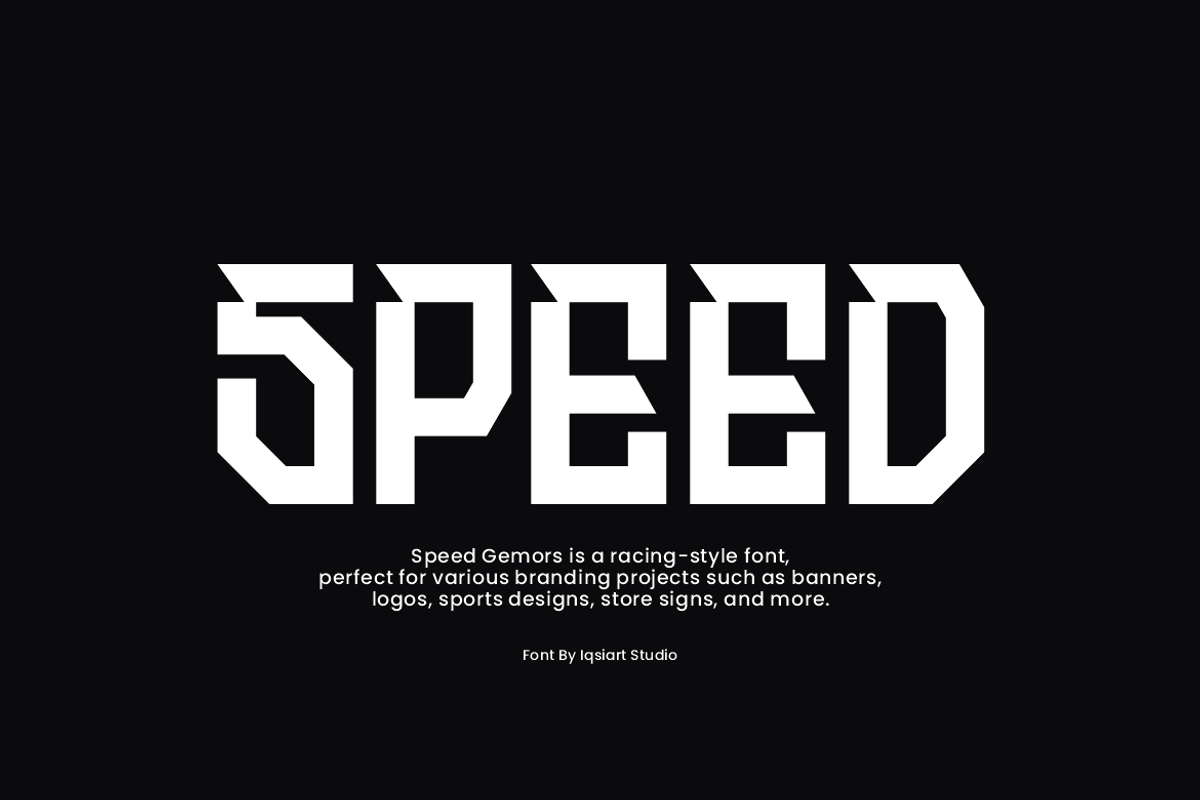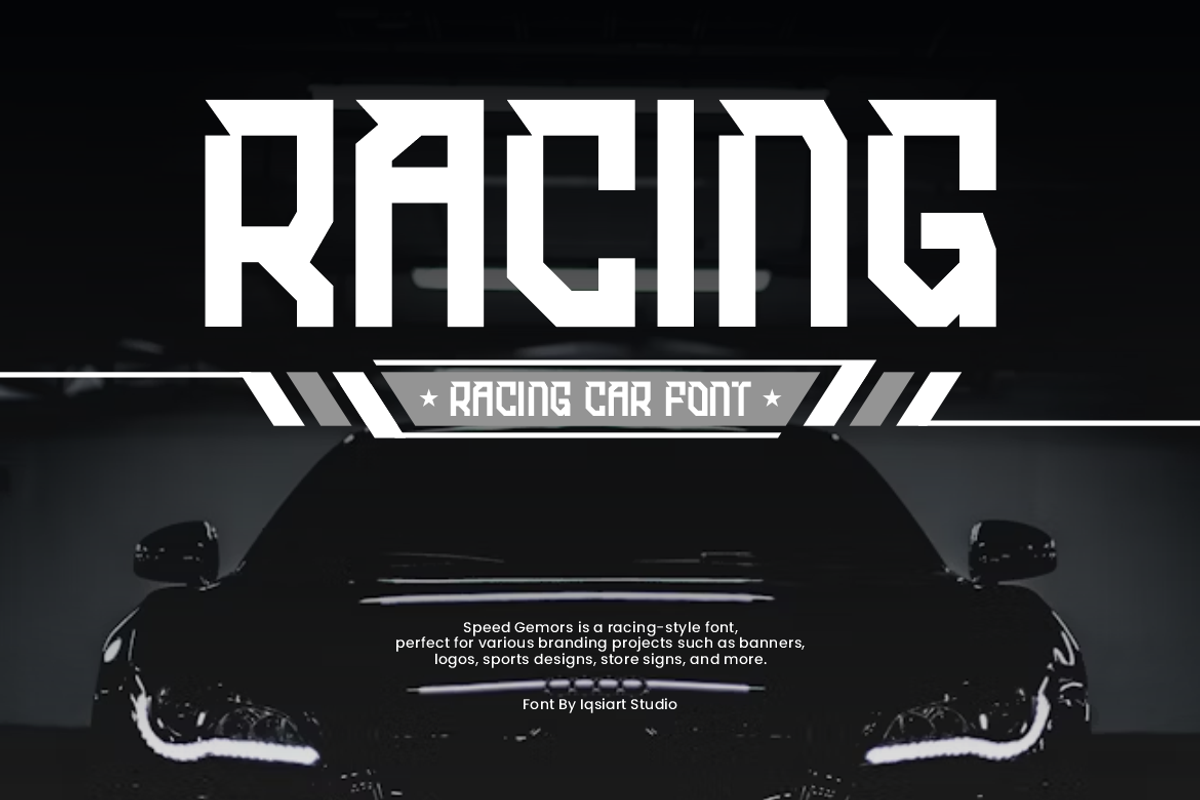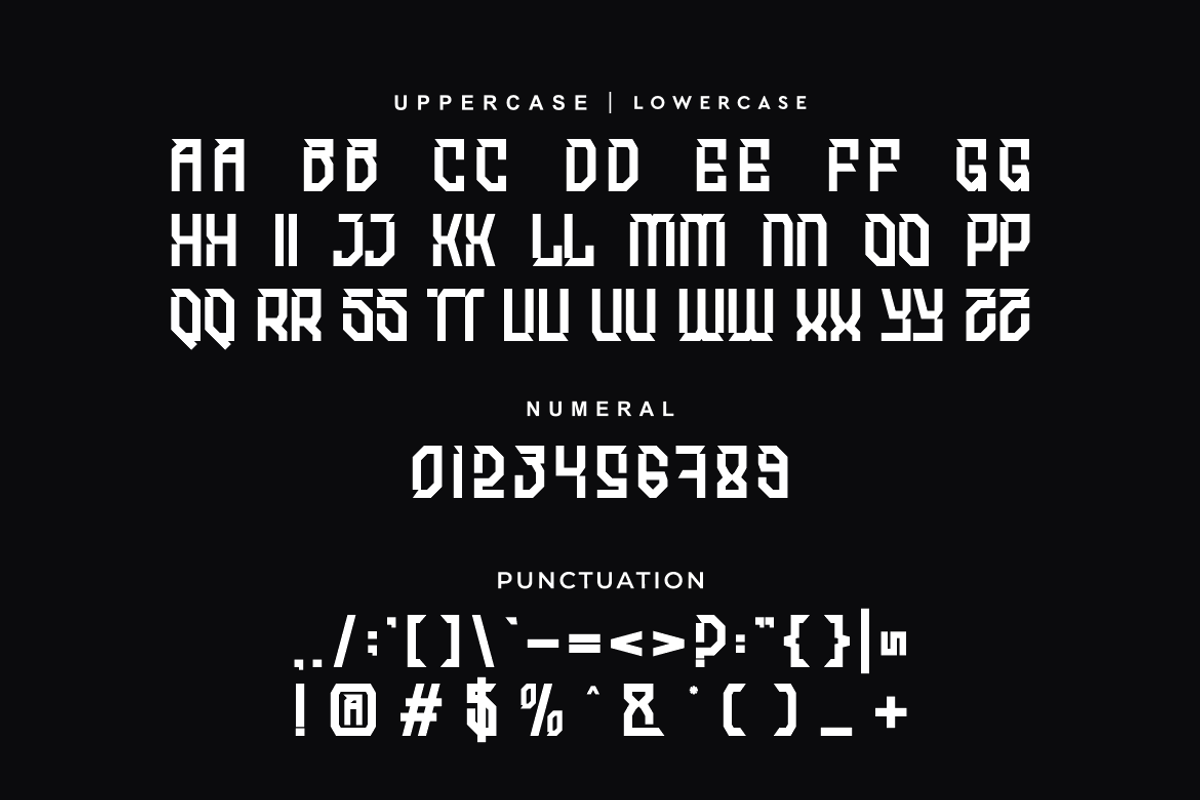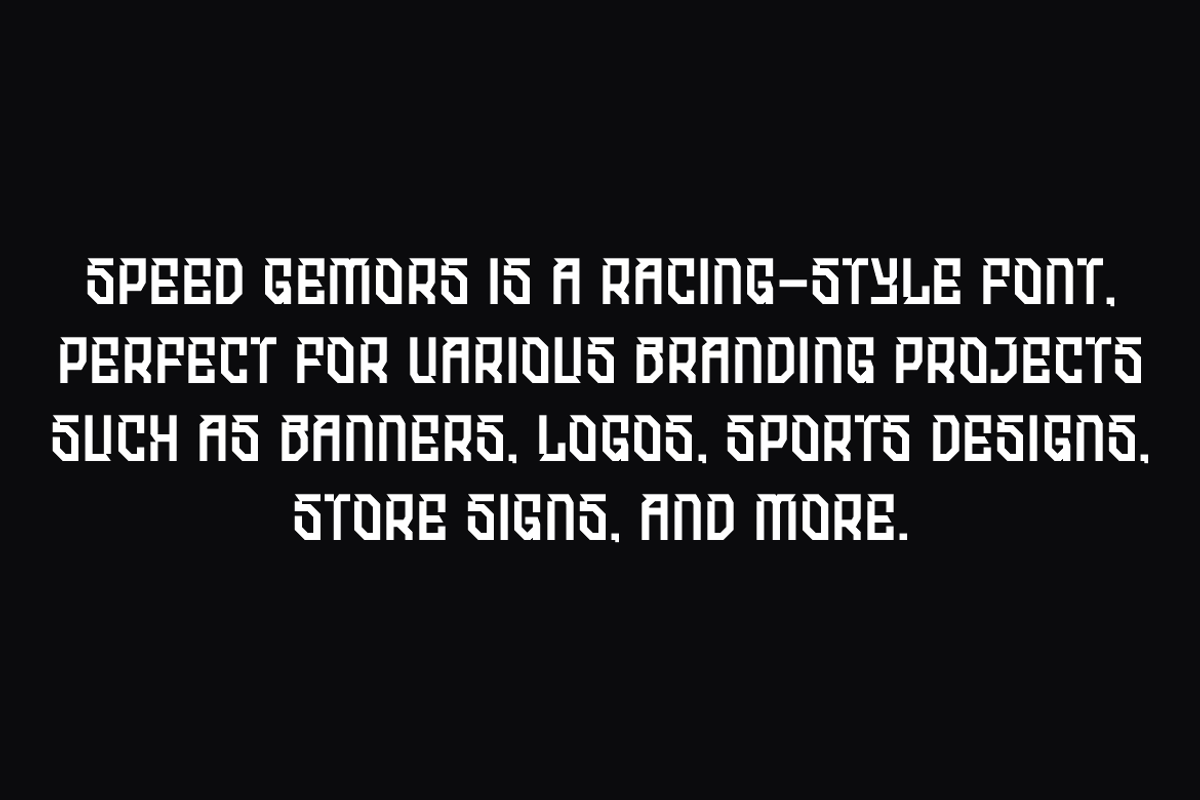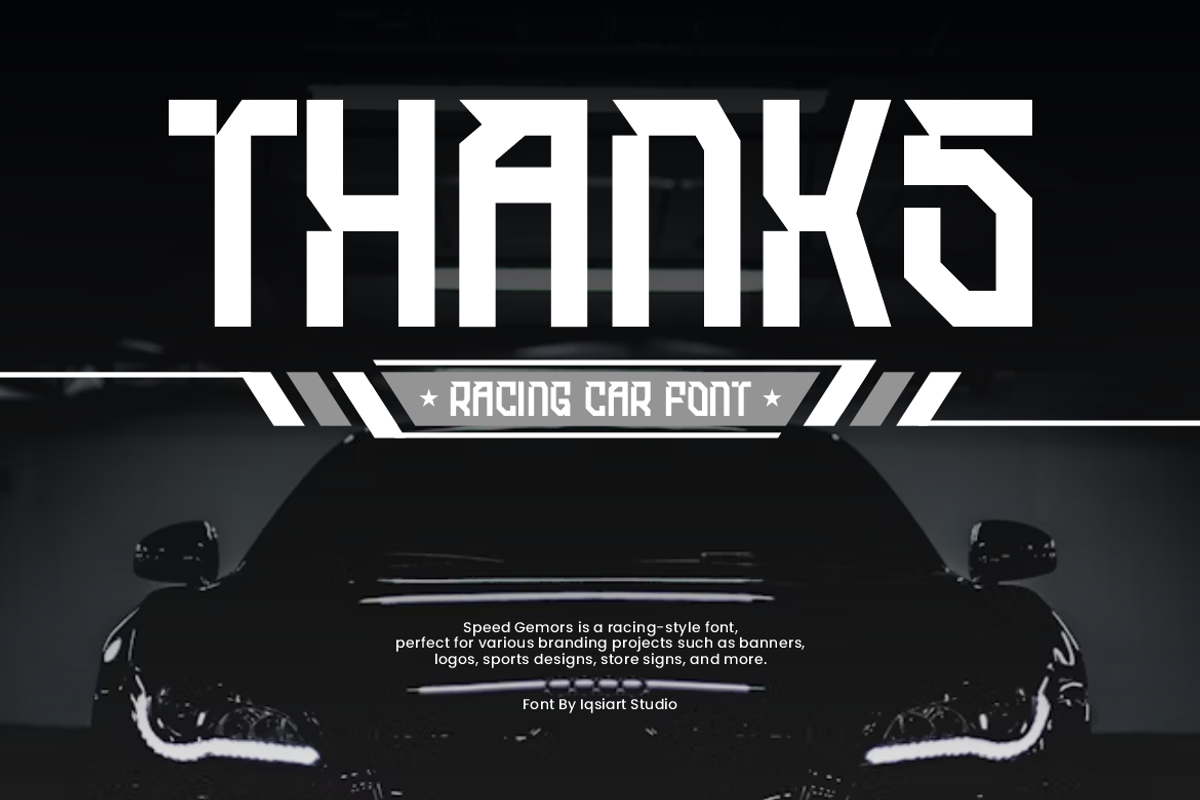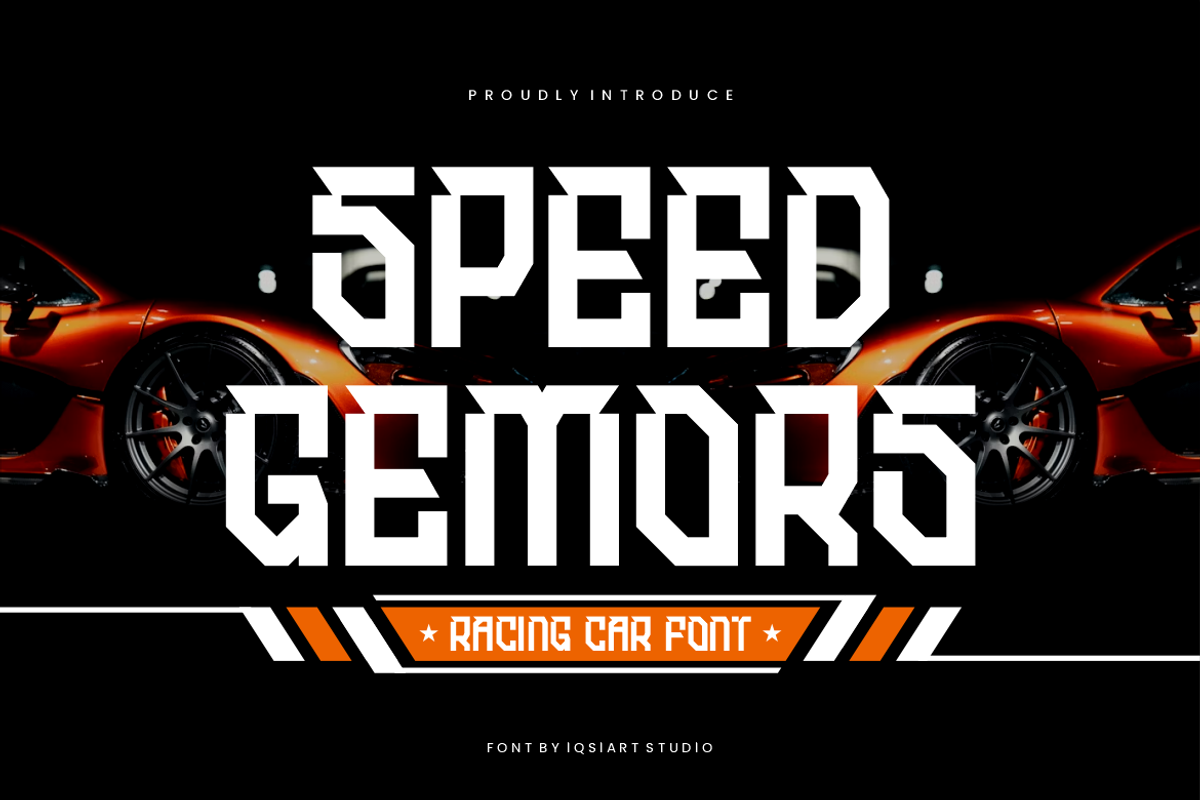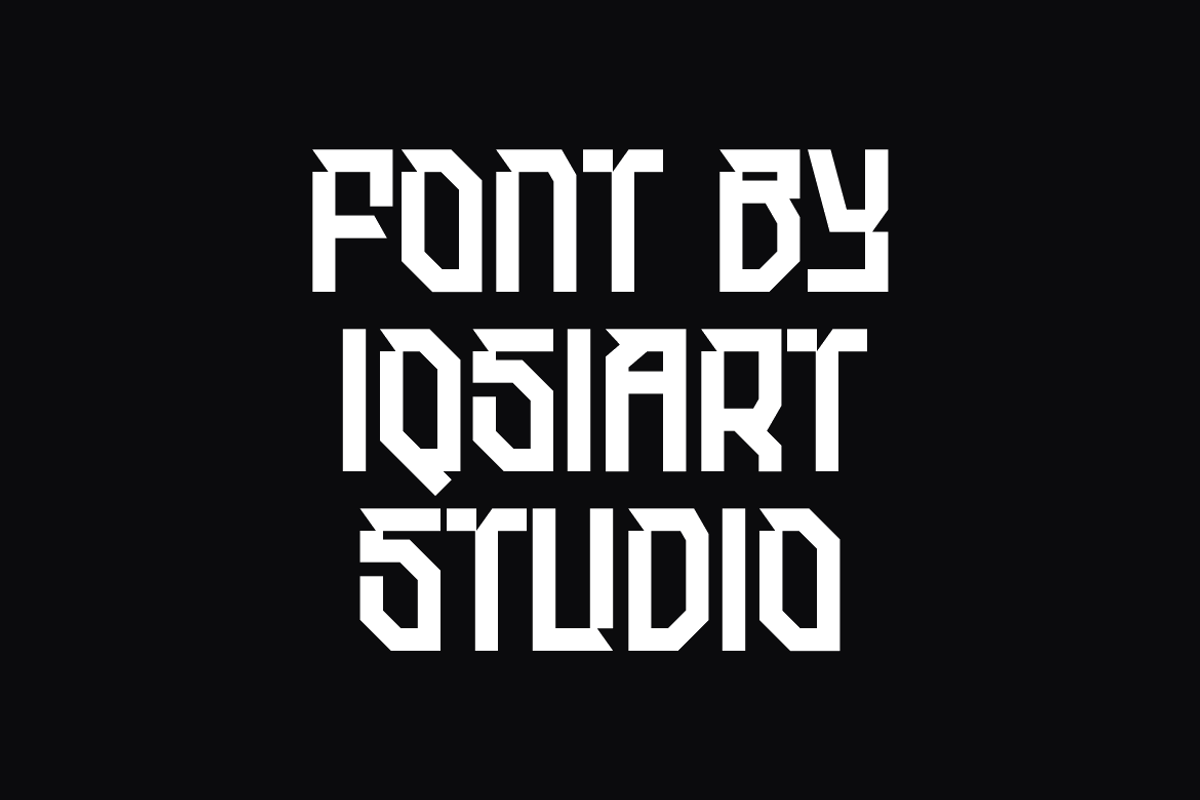
Speed Gemors - Racing Car Font
Speed Gemors Font is a bold and authentic display typeface that suits a variety of design needs. We offer a wide range of themes and font styles — visit our profile to explore more and find the perfect style for your project.